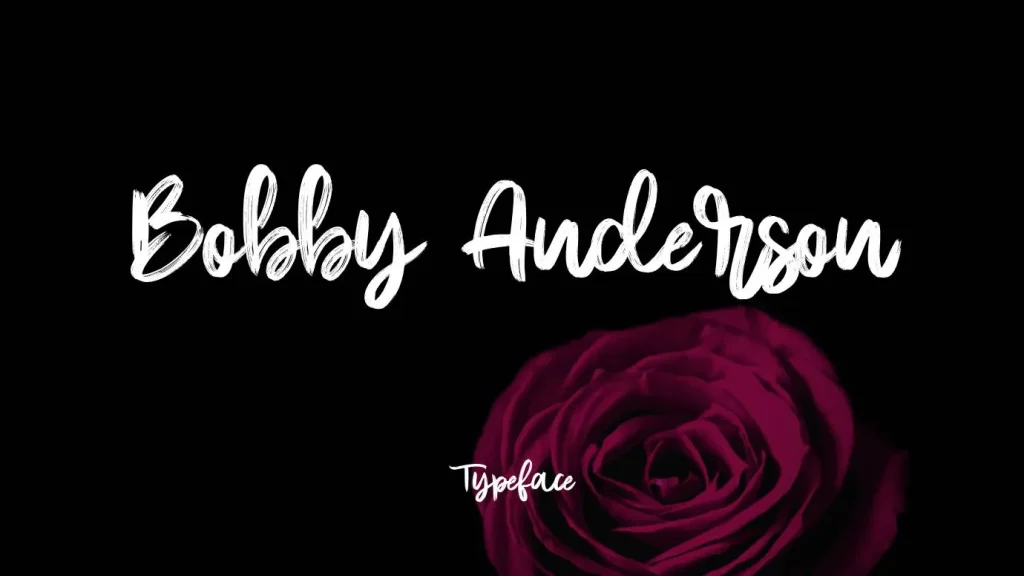
Bobby Anderson Font is a brush typeface and is a great choice for those who are searching for a classic textual style. It is an extremely simple and clear text style.
This typeface moreover has both lowercase characters and capitalized characters. This typeface is best for body content, headings, and captions. It can moreover be utilized for little amounts of content.
What Are the Qualities of Bobby Anderson Font?
Many creators pair this typeface with other textual styles in arrange to improve the excellence of the extended plan. It supports all of the official languages and also features special characters. A typeface is a fantastic option for print and web design.
Posters and banners can design beautifully with this beautiful. Due to its advanced and brilliant features, it can be used for a variety of purposes. This software allows you to create graphic text, logos for websites, template designs, and much more. Utilizing the apple chancery font opens up possibilities for creating extraordinary designs.
Advantages of Using Bobby Anderson Font
In addition to having an appealing appearance, this typeface can be used to design interesting logos. The Adobe application Canva and Photoshop can be used with this. It is suitable for labeling, emojis, symbols, writing materials, business cards, advertising, flyers, and invitation cards.
You can utilize the lettering style for graphical plans, outlines, and more. It is additionally a great choice for those who need to make a feeling of modernity at their work.
Characters of the Bobby Anderson Font
What kind of text style the Bobby Anderson textual style is?
This dazzling typeface has a place in the category of the brush typeface. It’s idealized for body content and can be utilized for a wide range of projects.